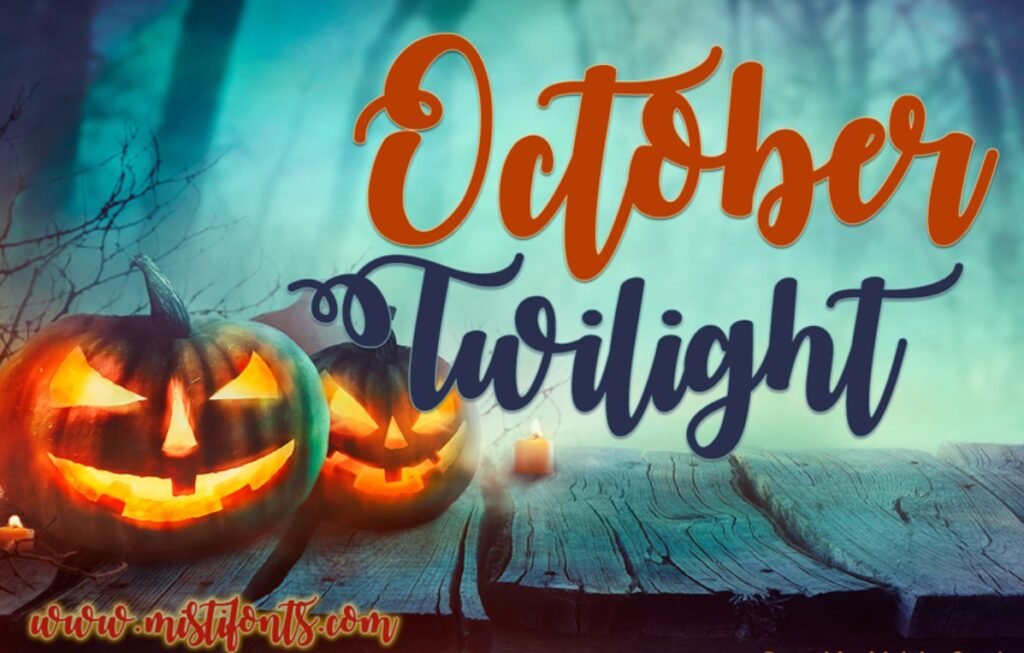
October Twilight font is an enchanting script font that adds magic to any design. Its handwritten style makes it ideal for creative works such as wedding fantasy book covers, or dreamy social media graphics.
Fonts such as October Twilight adds glamour and sophistication to the aesthetic of a design. The October Twilight font is special because of the flowing fairy-tale vintage inspired letterforms which typographers and designers love.
What is the October Twilight Font?
October Twilight Font is a cursive font designed by Misti Hammers (Misti’s Fonts). It is intended to capture beautiful flowing handwriting with a fantastical touch which makes it great for projects of a romantic, whimsical, or Halloween nature.
Here is what makes this font unique:
- Cursive and hand-drawn in style
- Designed to feel enchanted and expressive
- Part of the broader October Twilight font family used by designers for decorative, creative work
- Loved for its ability to bring a storybook or fantasy aesthetic to typography
Whether you’re working on personal artwork or themed event materials, this font offers a dreamy touch that’s hard to miss.
Features of the October Twilight Font
The October Twilight regular font has several defining traits that make it a go-to for expressive design. Here are its key features:
- Elegant Cursive Style – Letters are beautifully looped and handwritten, giving them a vintage yet magical feel.
- Perfect for Fantasy Themes – Ideal for projects involving fairy tales, witches, romance, or the supernatural.
Applications of the October Twilight Font
Designers and creatives use the October Twilight typeface in a variety of artistic and professional projects. Its romantic and whimsical style makes it a perfect fit for:
- Wedding Invitations – Adds a soft, magical elegance to names and event details.
- Event Posters – Especially fitting for Halloween, fantasy festivals, or vintage markets.
- Social Media Graphics – Ideal for inspirational quotes, banners, or aesthetic posts.
- Book Covers & Titles – Popular among fantasy, young adult, and romance genres.
- Branding & Logos – Boutique businesses or handmade brands can use it for a personalized, magical identity.
Conclusion:October Twilight Font
The October Twilight script font is not simply a typeface–it is a gateway to enchanting whimsical storybook design. This font is loved by many designers for its vintage appeal, romantic curves, and flowing lines because it adds an enormous amount of magic to any work.
From fantasy covers to wedding stationery and branding ochers, October Twilight is ideal for designers looking to add elegance and spark to their work.